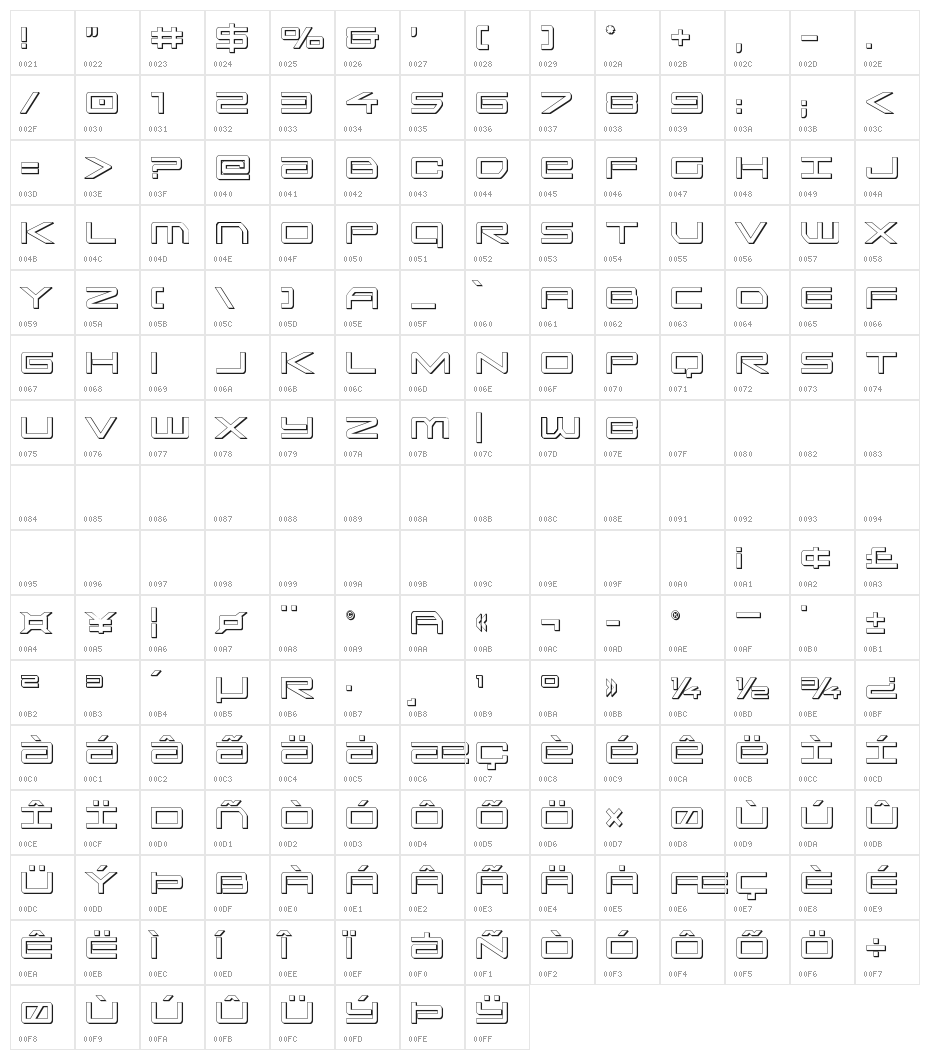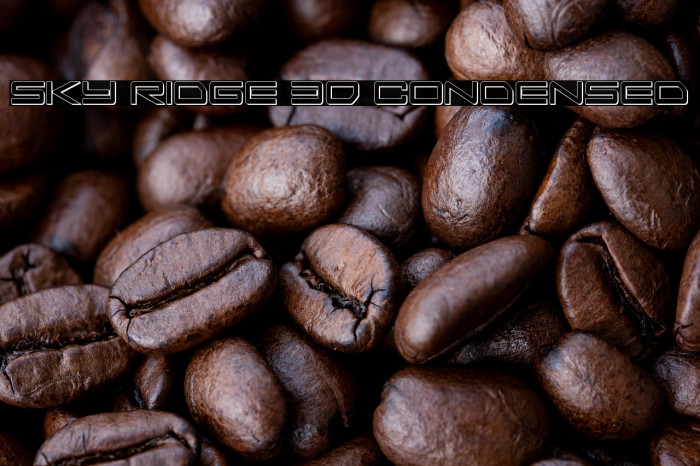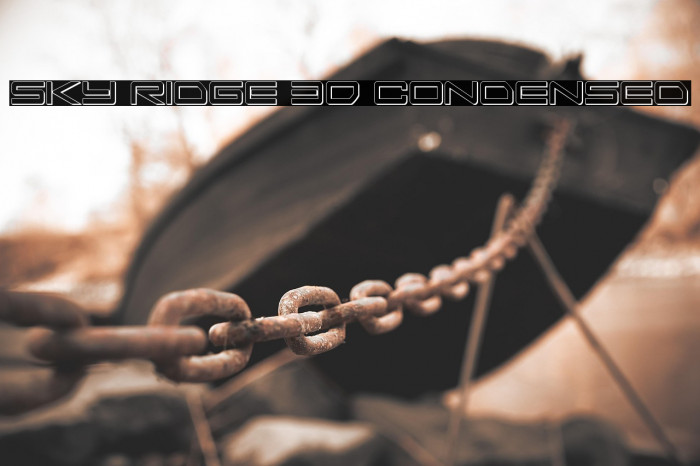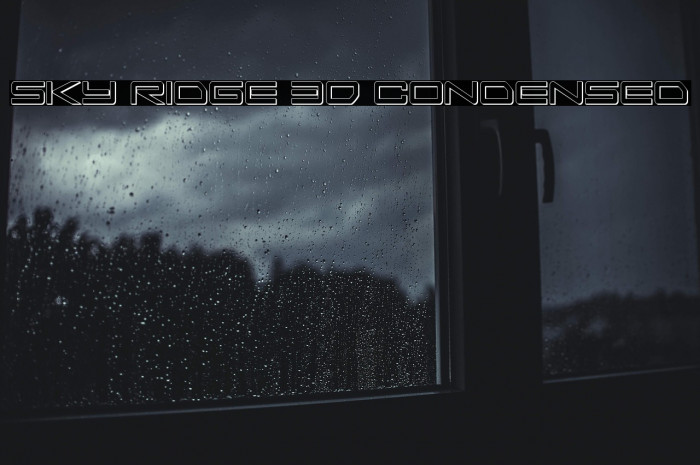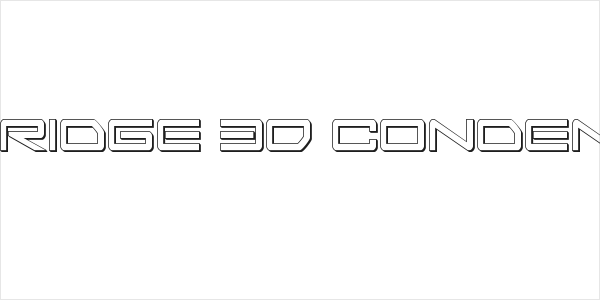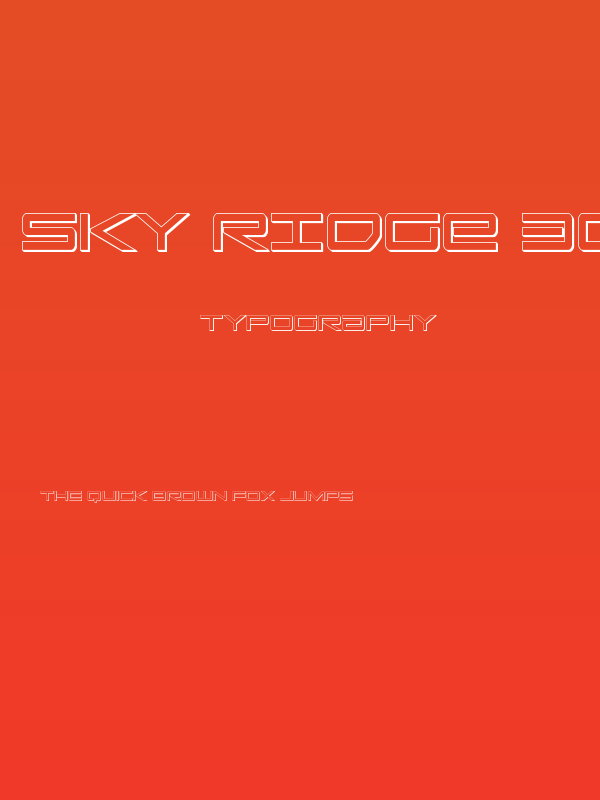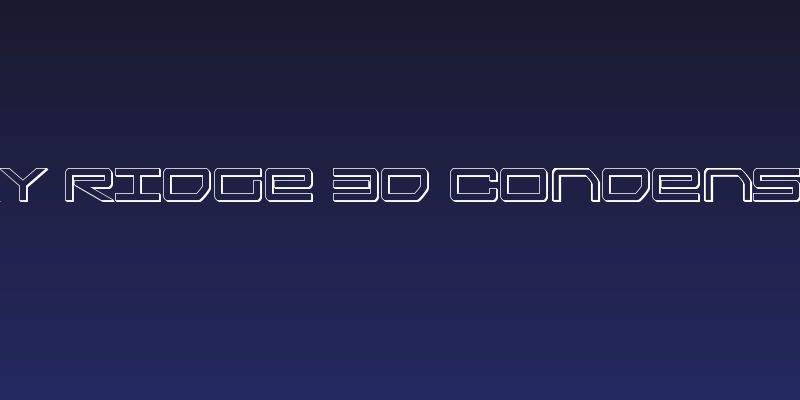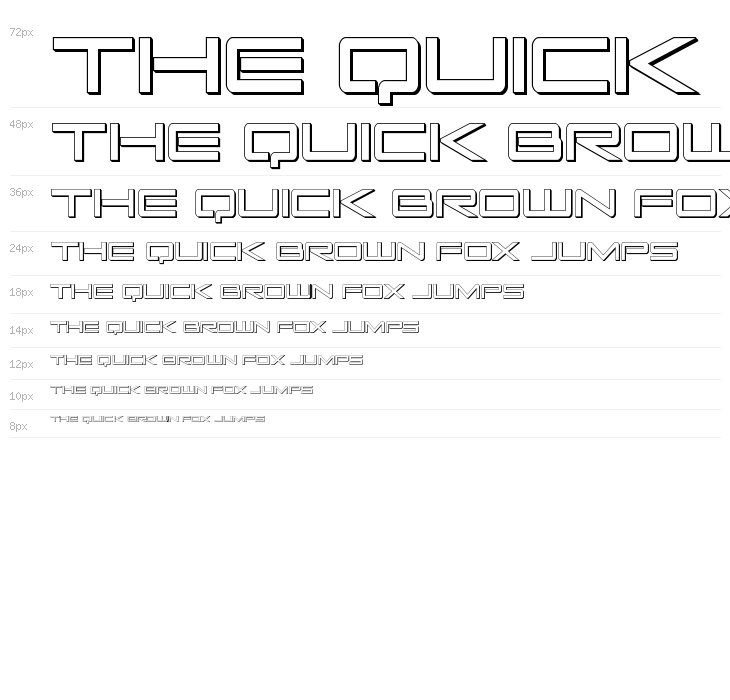
Sky Ridge 3D Condensed Font
Sky Ridge 3D Condensed Description
This font features a futuristic and geometric design with a three-dimensional effect. The characters are outlined, creating a hollow appearance that adds depth and visual interest. The style is highly structured, with sharp angles and clean lines, giving it a modern and tech-inspired look. The uppercase and lowercase letters maintain a consistent design, while the numerals and special characters complement the overall aesthetic. This font is ideal for projects that require a bold and eye-catching typeface with a contemporary edge.
| Proposed Projects | Ideal for tech-related branding, sci-fi themed designs, video game titles, and modern posters. |